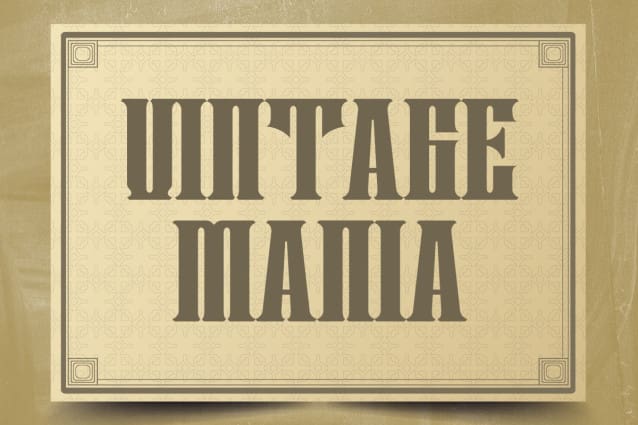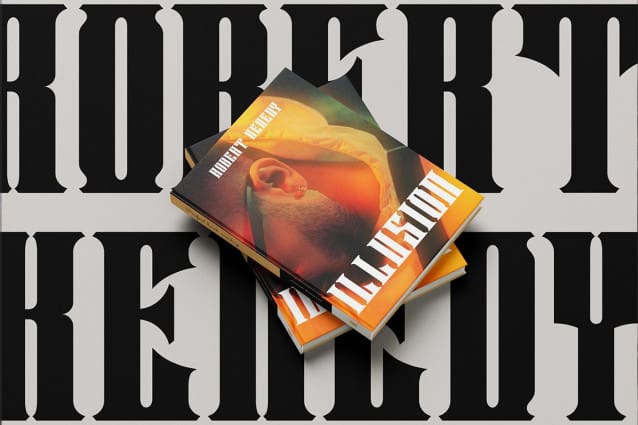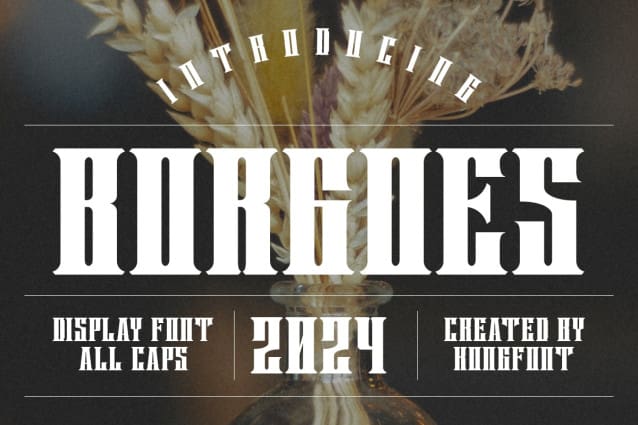
Borgoes Font
Borgoes Font – Modern Display Vintage Font presents a very unique and attractive appearance of decorative typography. This font is a variation of a decorative font that adheres to an urban feel at night. Not only in the form of ordinary letters but the typeface is also equipped with shadows and light that surround it and looks modern and mysterious.
Talked about readability, each Borgoes Font – Modern Display Vintage Font glyph character has a clean, large appearance, making them distinguishable from one another and suitable for large-size printing. Borgoes Font – Modern Display Vintage Font was made to brighten up a night party. It can be used as posters and banners.
Large printed banners with large font sizes will also be the best choice when using this type of font to welcome party-themed banners and posters for the invitees. This font will catch everyone’s eyes on the words when entering a room.
You can also use the Borgoes Font – Modern Display Vintage Font in other products, like; t-shirts, book covers, and brand product tags. Companies that produce goods with modern themes can also use this font in their products. This font can also be used as decoration in places that people frequently visit, such as; shopping malls, restaurants, and bars.